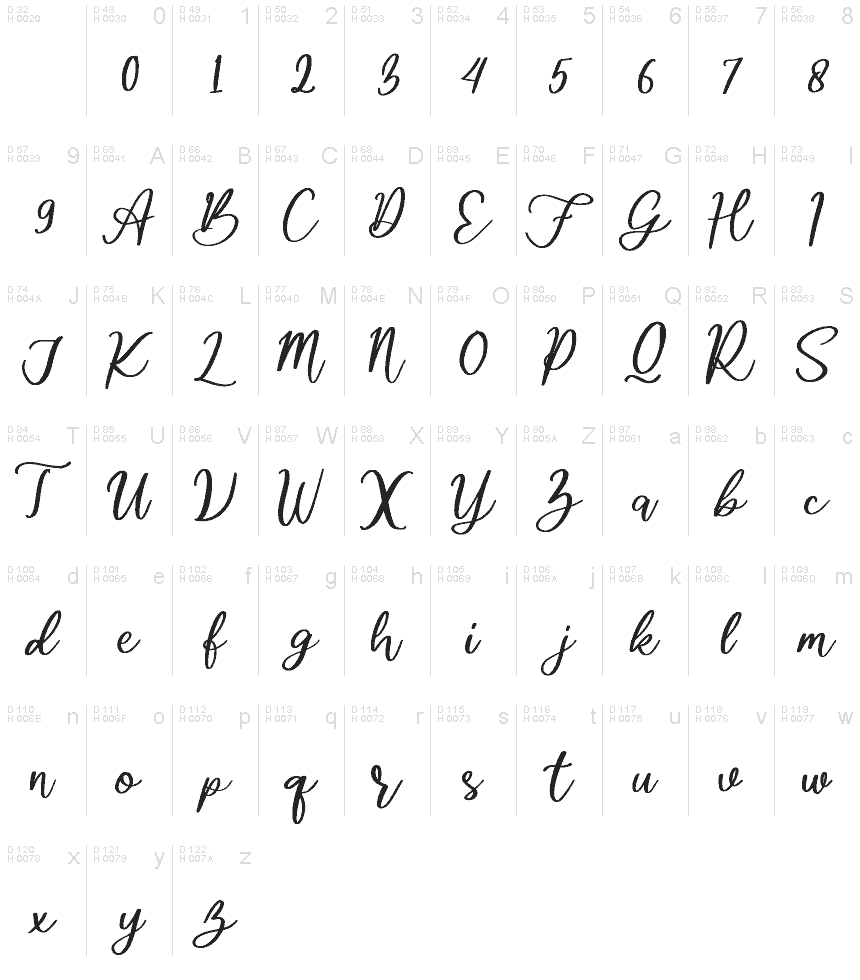
Hankey Regular
Hankey font features a sleek, flowing letter design with many curves. The modern handwriting style is apparent with a slight vintage touch and matching a casual appearance. A set of more stylistic alternates as well as ligatures are included to spice up every text and enhance it with elegance and uniqueness.
Use this free handwritten font for brochures, flyers, T-shirts, ads, stationery designs, labels of organic products and cosmetics, or even packaging. Last but not least, type your favorite quotes using Hankey in glitter gold color over a dark background to create awesome social media images (like Instagram).